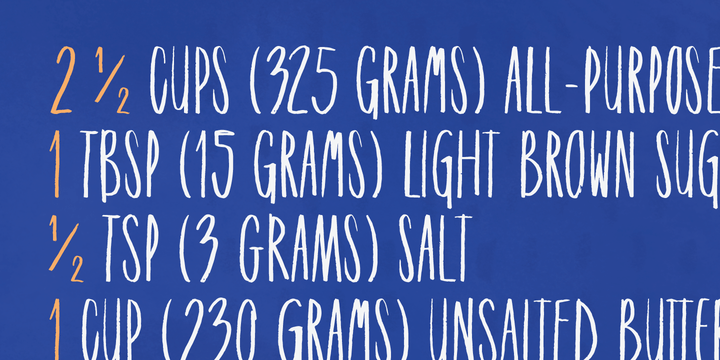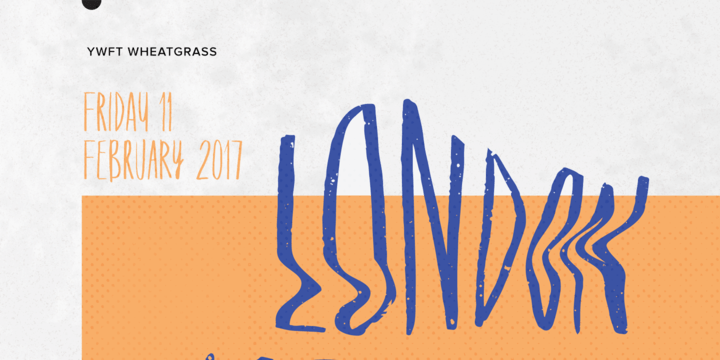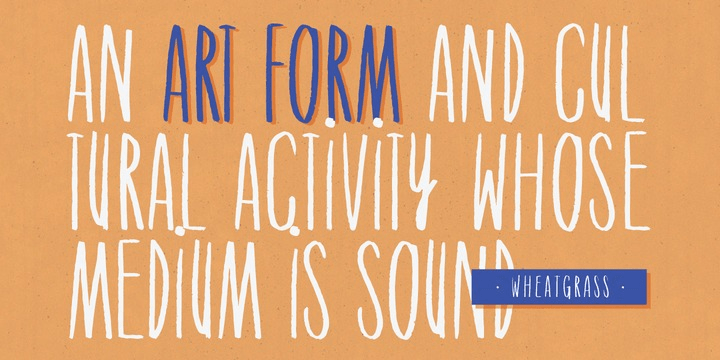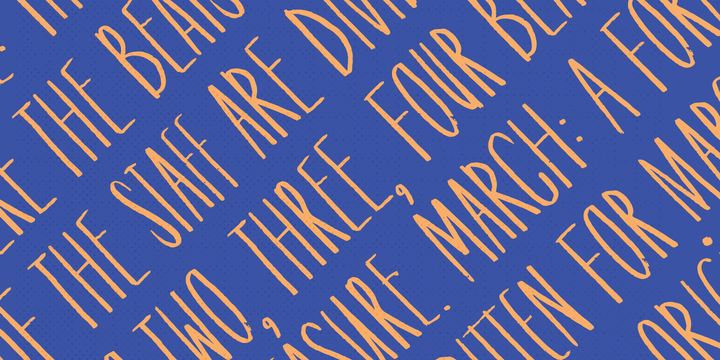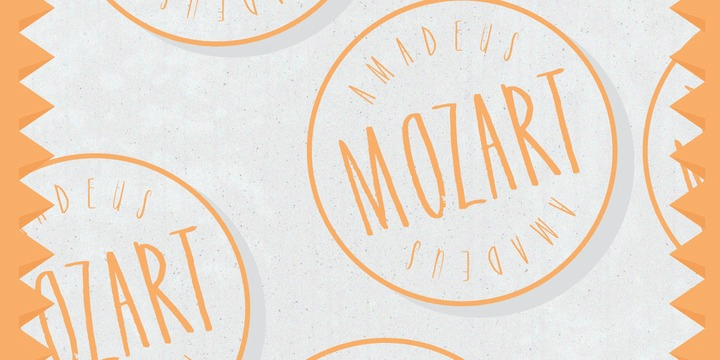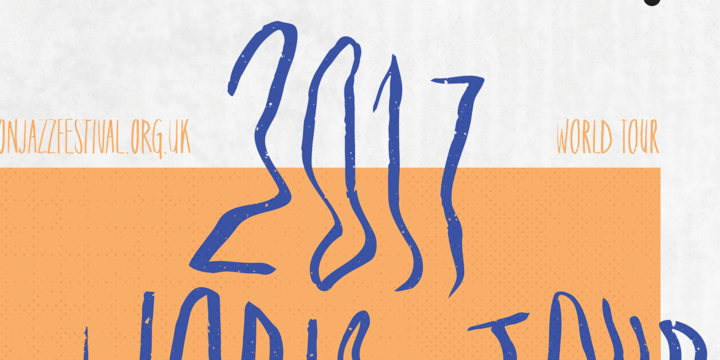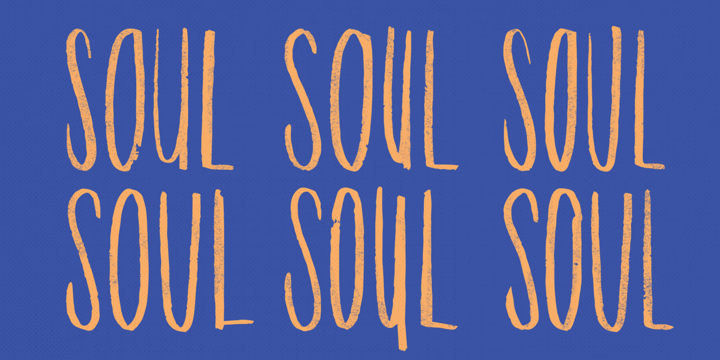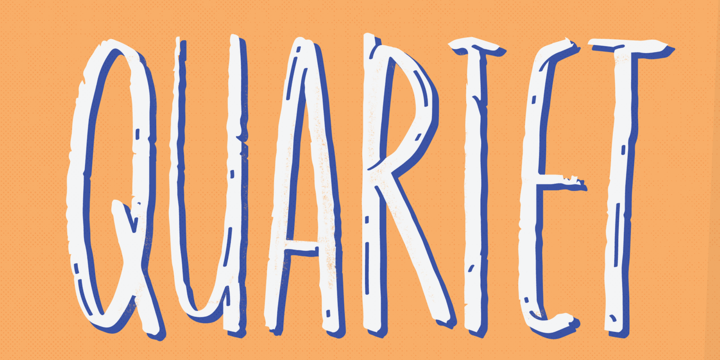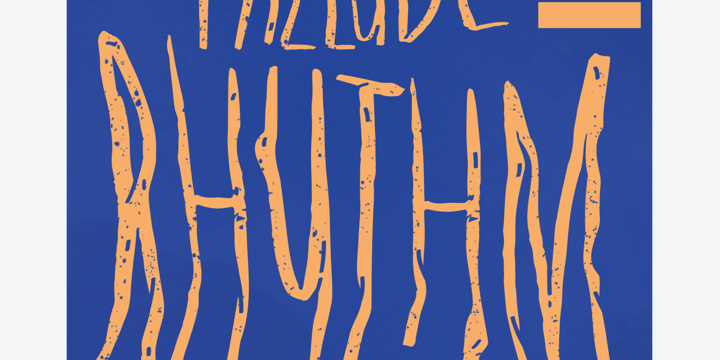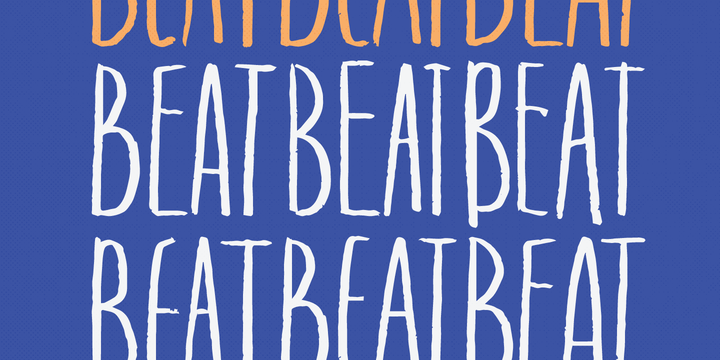
YWFT Wheatgrass
Font Family by YouWorkForThem
Tall, organic, and hand drawn? sounds like it might be a dating profile headline, and if that sounds good to you, you're going to want to meet up with YWFT Wheatgrass, which fits that description to a handwritten capital T. With over 1,200 glyphs, YWFT Wheatgrass is loaded with a mixture of multiple alternates that makes for a truly hand crafted style, great for food packaging, menus, and identity copy and headlines where an artisanal, hand made vibe is needed. Spiritually related to our flagship YWFT Hannah, this new font carries a bolder, heavier weight. You'll want a shot of this Wheat Grass.